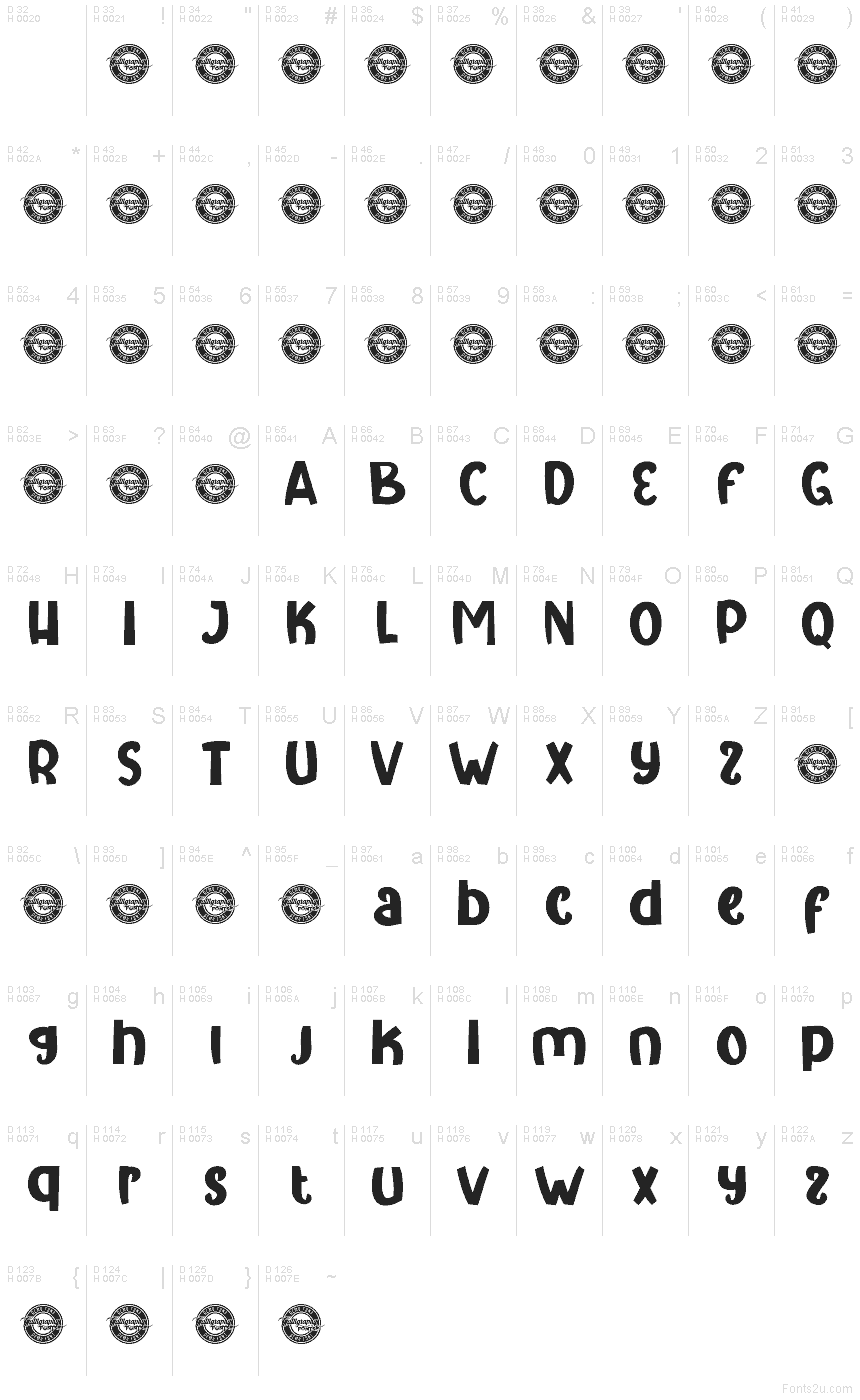
BitterCandyDemo
Bitter Candy font by Calligraphy Fonts is a free cartoon display typeface with chunky, hand-drawn letters that look like they’ve been cut from soft, inky sugar paper. The rounded shapes, loose rhythm, and slightly wobbly outlines give it a bouncy, candy-shop energy—playful, but with enough weight to stand out on busy, colorful layouts.
Using Bitter Candy, you can bring a fun, handmade vibe to kids’ book covers, birthday invitations, candy or snack packaging, stickers, YouTube thumbnails, and casual game titles. This free font shines at larger sizes where its quirky curves and bold silhouettes can really pop. For supporting text, pair it with a simple, clean sans serif and let Bitter Candy handle the loud, tasty headlines.